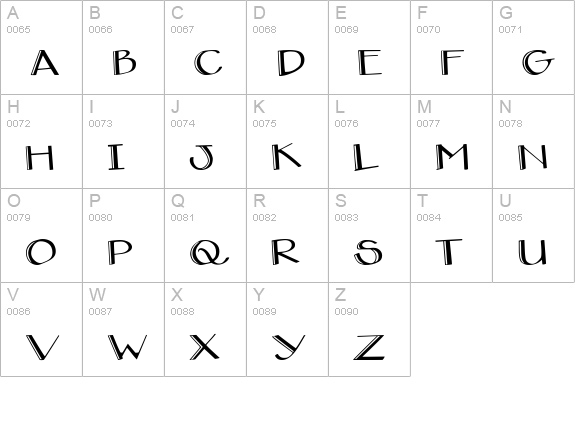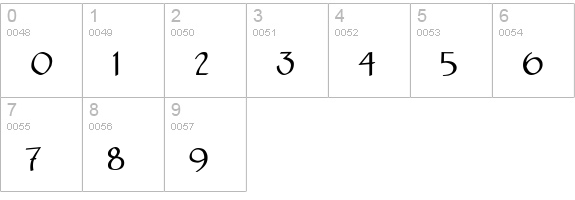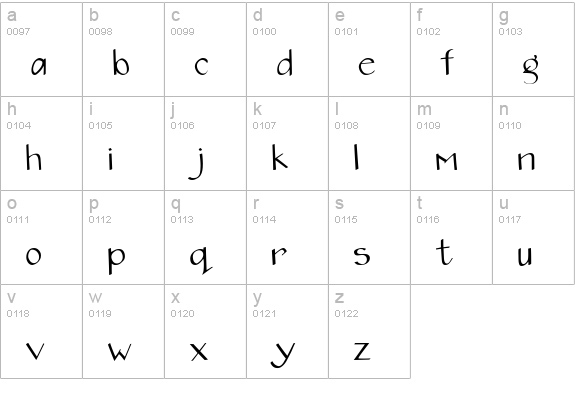
DJ Classic Font Details
DJ Classic font is a timeless and sophisticated typeface that exudes elegance and charm. Its sleek lines and classic design make it perfect for a variety of projects, from invitations to branding to editorial design. The font's versatility allows it to be used in both modern and traditional settings, adding a touch of sophistication to any text. The best part is that DJ Classic font is completely free to download at FontsMarket.com. This means that you can enhance your projects with this beautiful font without having to worry about any additional costs. Whether you are a designer looking to add a touch of elegance to your work or someone looking for a stylish font for personal projects, DJ Classic font is the perfect choice. Download it today and elevate your designs with this timeless typeface.